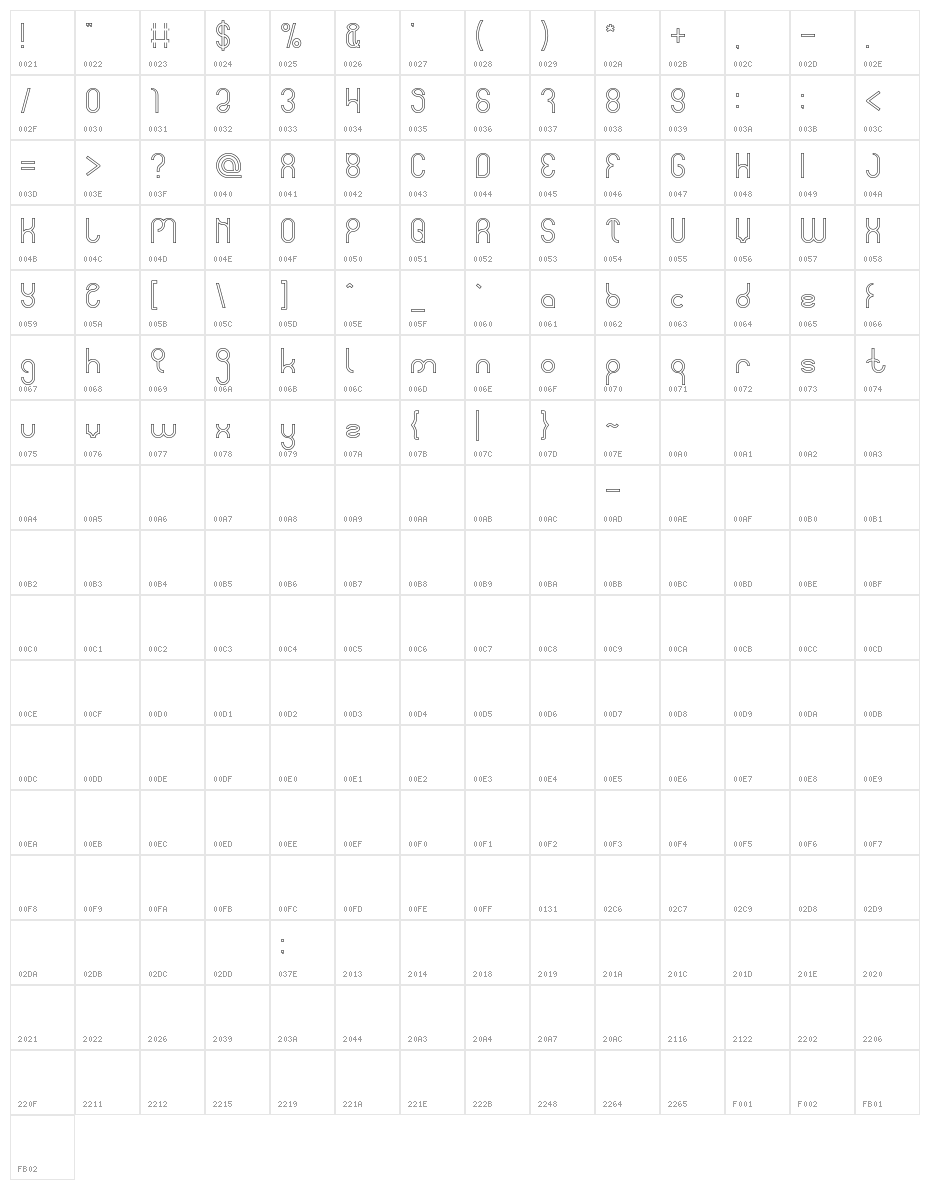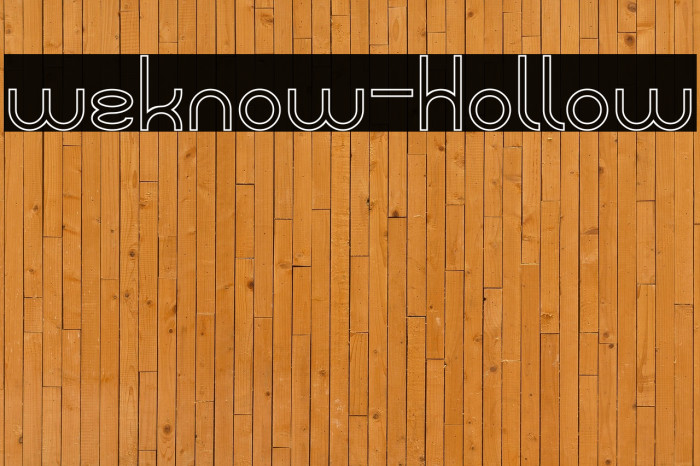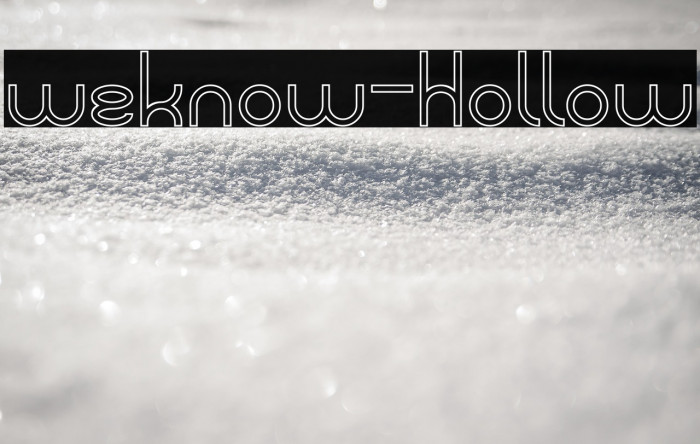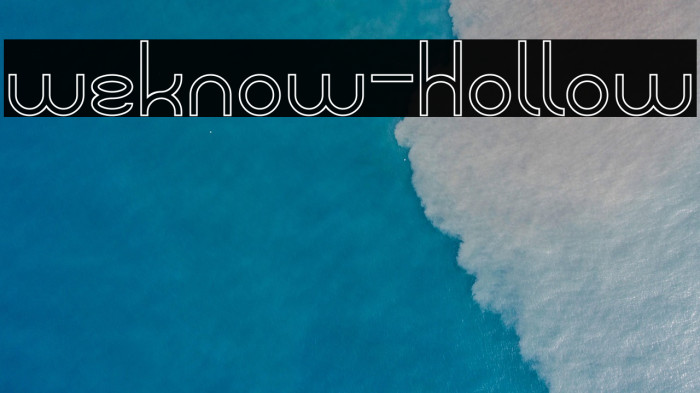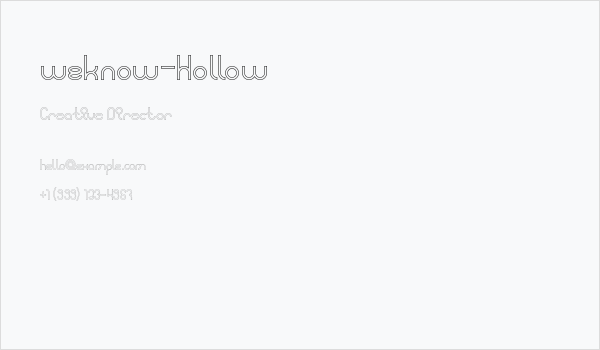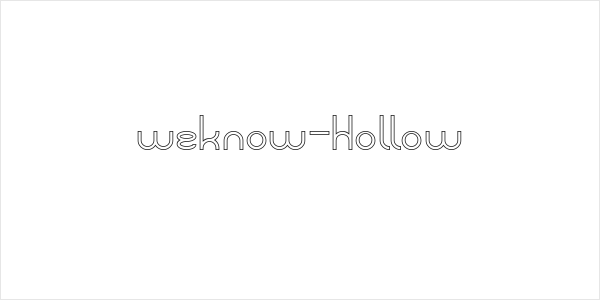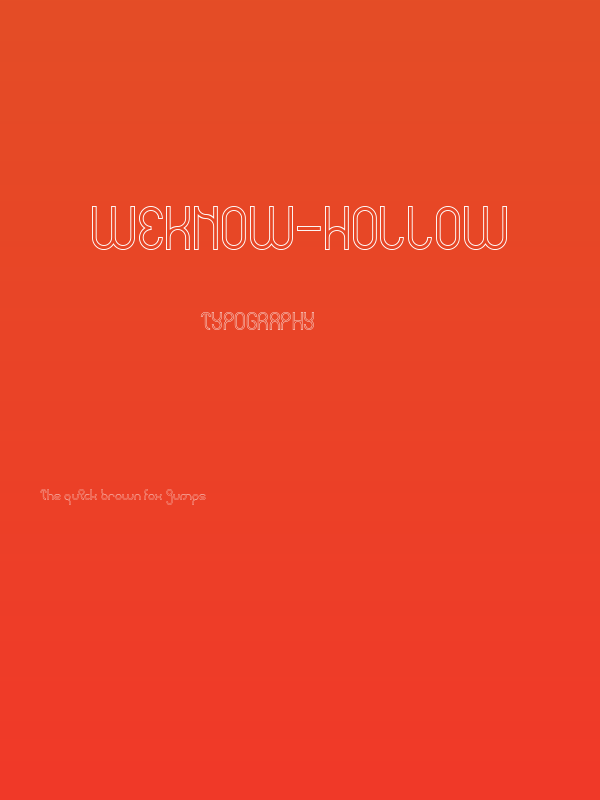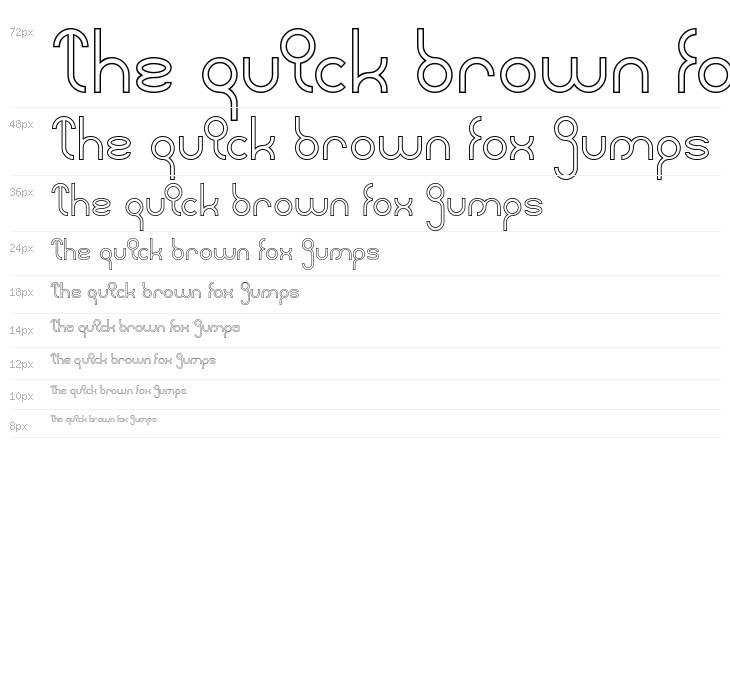
weknow-Hollow Font
weknow-Hollow Description
This font features a unique, hollow design with a modern and futuristic aesthetic. The characters are outlined, creating a sense of openness and lightness. The uppercase and lowercase letters maintain a consistent style, with rounded edges and a geometric structure. The numbers and special characters follow the same design principles, ensuring uniformity across all elements. This font's distinct appearance makes it ideal for creative and artistic projects where a bold statement is desired.
| Proposed Projects | Ideal for branding, posters, album covers, and digital art projects. |